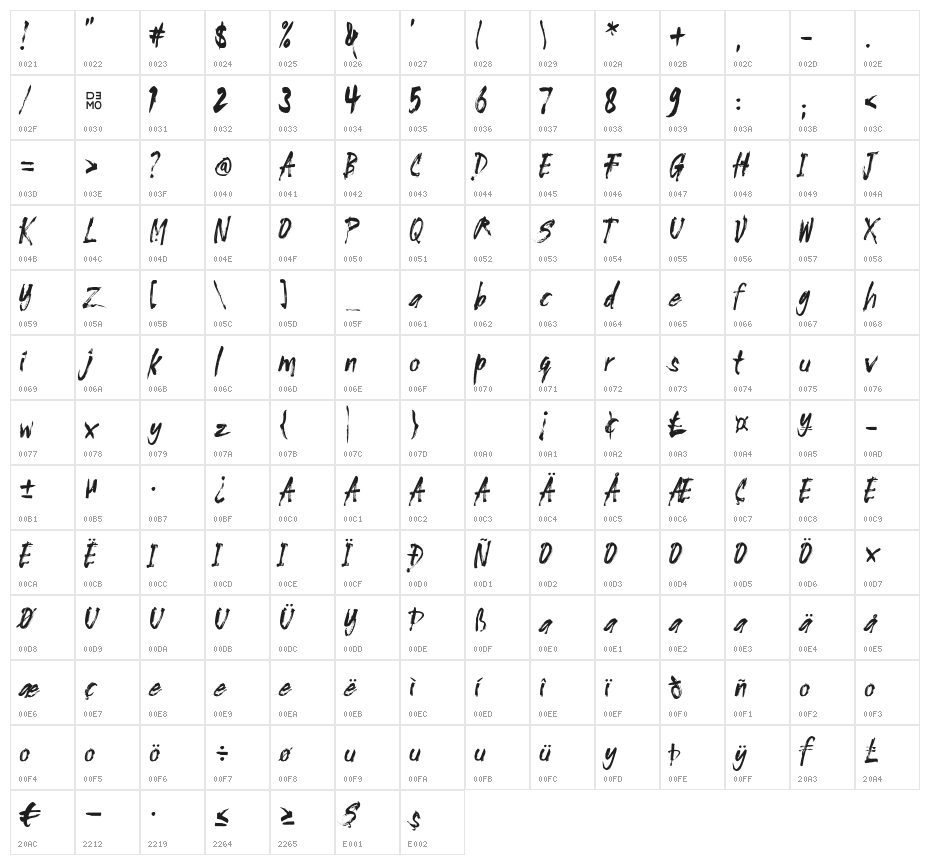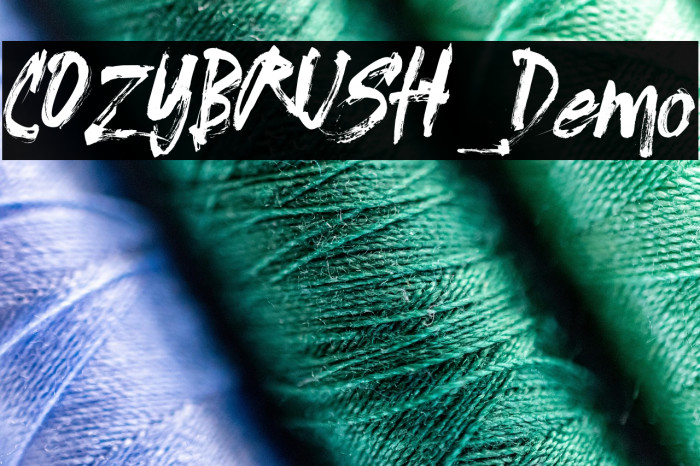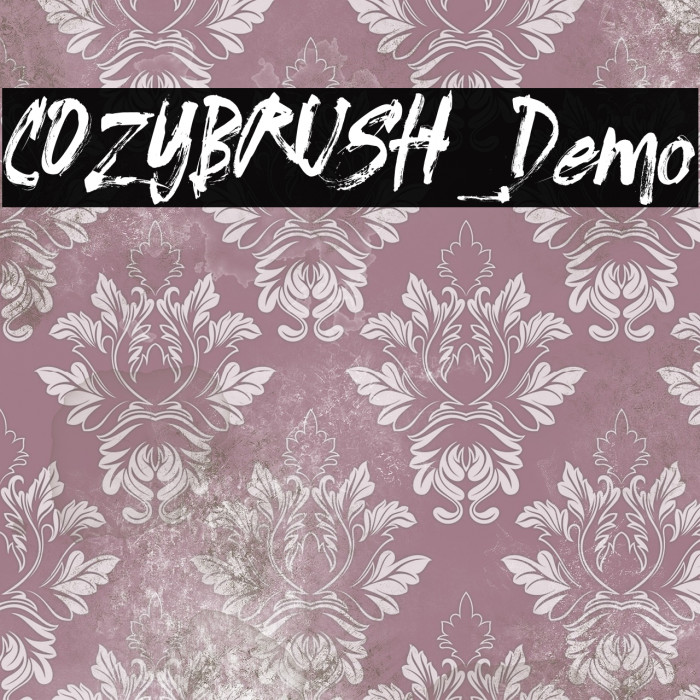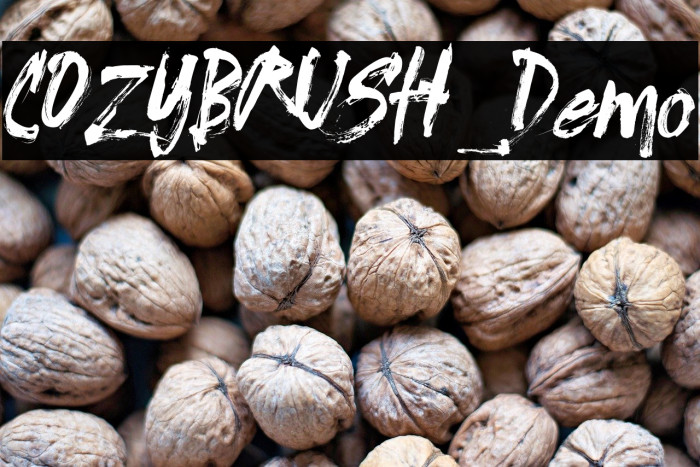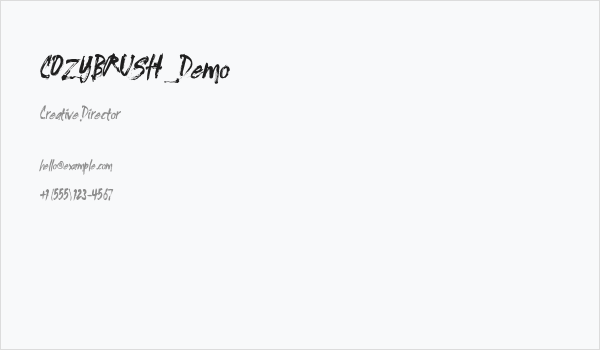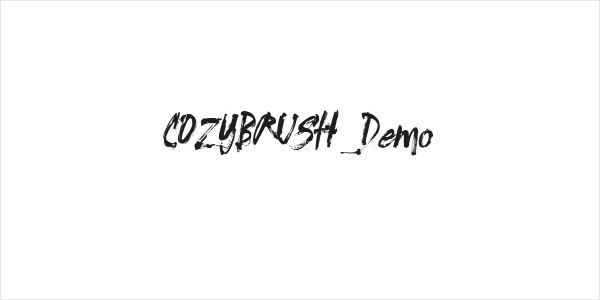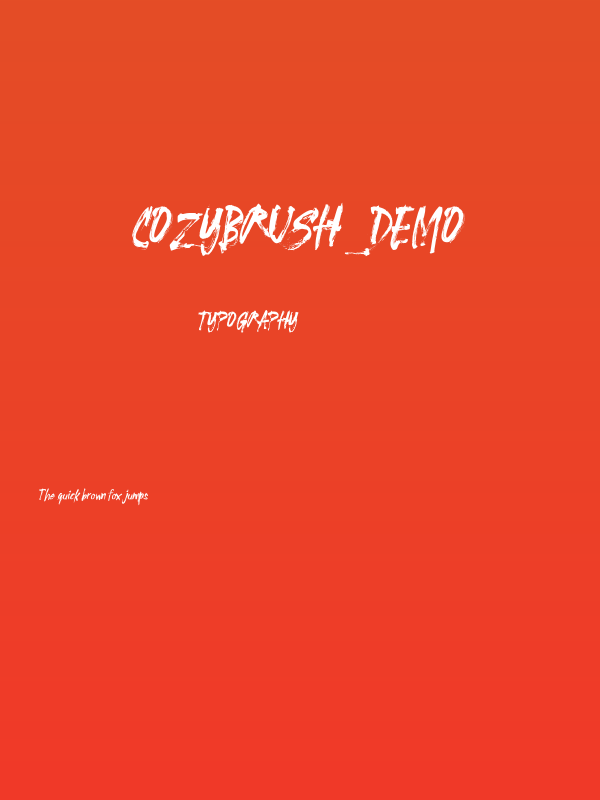
COZYBRUSH_Demo Font
COZYBRUSH_Demo Description
This font exudes a dynamic and energetic feel, characterized by its bold, brushstroke appearance. The letters are crafted with a rough, textured style that mimics the look of hand-painted strokes, giving it a raw and artistic vibe. The uppercase and lowercase letters maintain a consistent brush-like texture, while the numbers and special characters follow suit with the same expressive design. This font is perfect for projects that require a touch of creativity and flair, such as artistic posters, bold branding, or eye-catching headlines.
| Use Case | Headlines, Logos, Artistic projects |
| Proposed Projects | Ideal for artistic posters, bold branding, eye-catching headlines, and creative designs. |